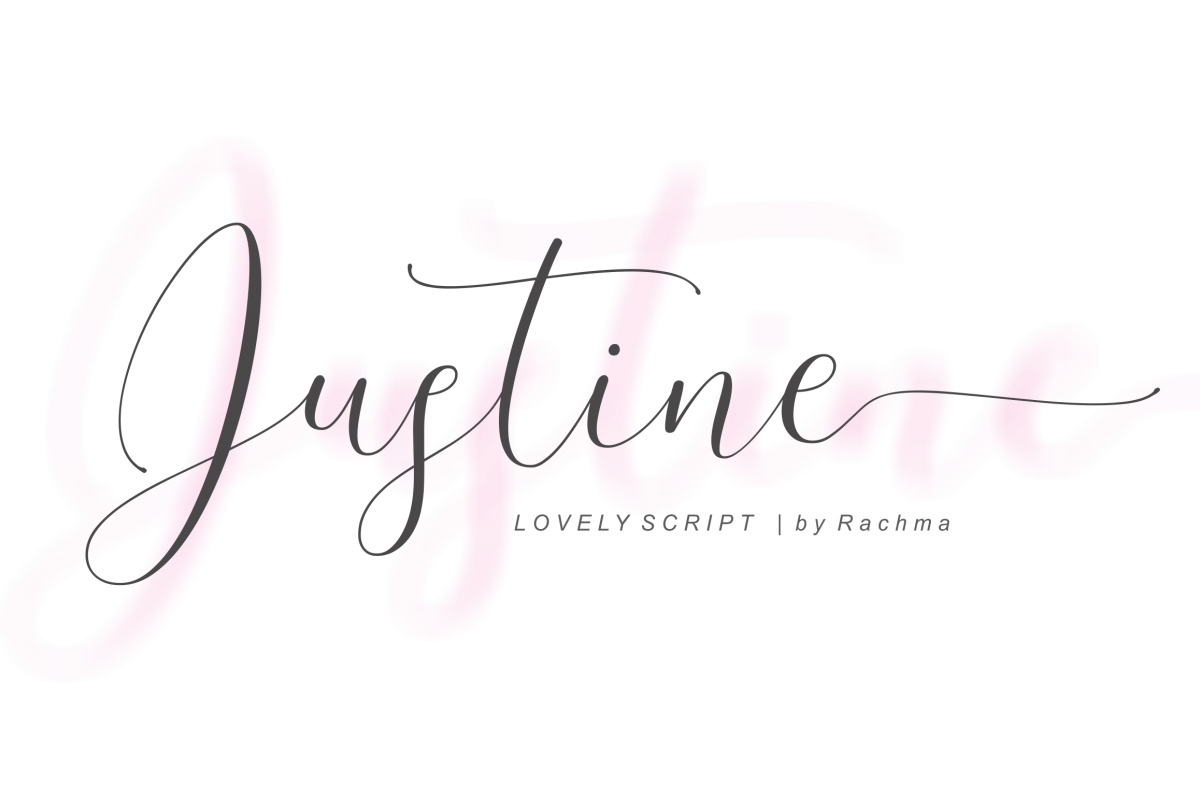
Justine
Introducing Justine Lovely Script
Justine is built with OpenType features and includes start and end swash, numbers, punctuation, alternatives, binders and also supports other languages ​​:)
Can be used for various purposes.such as headings, signature, logos, wedding invitation, t-shirt, letterhead, signage, lable, news, posters, badges etc.